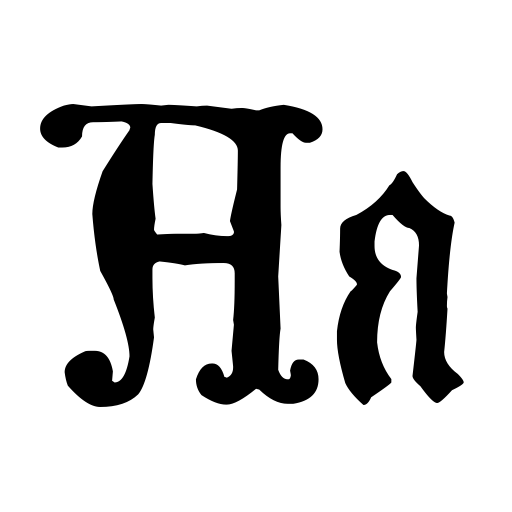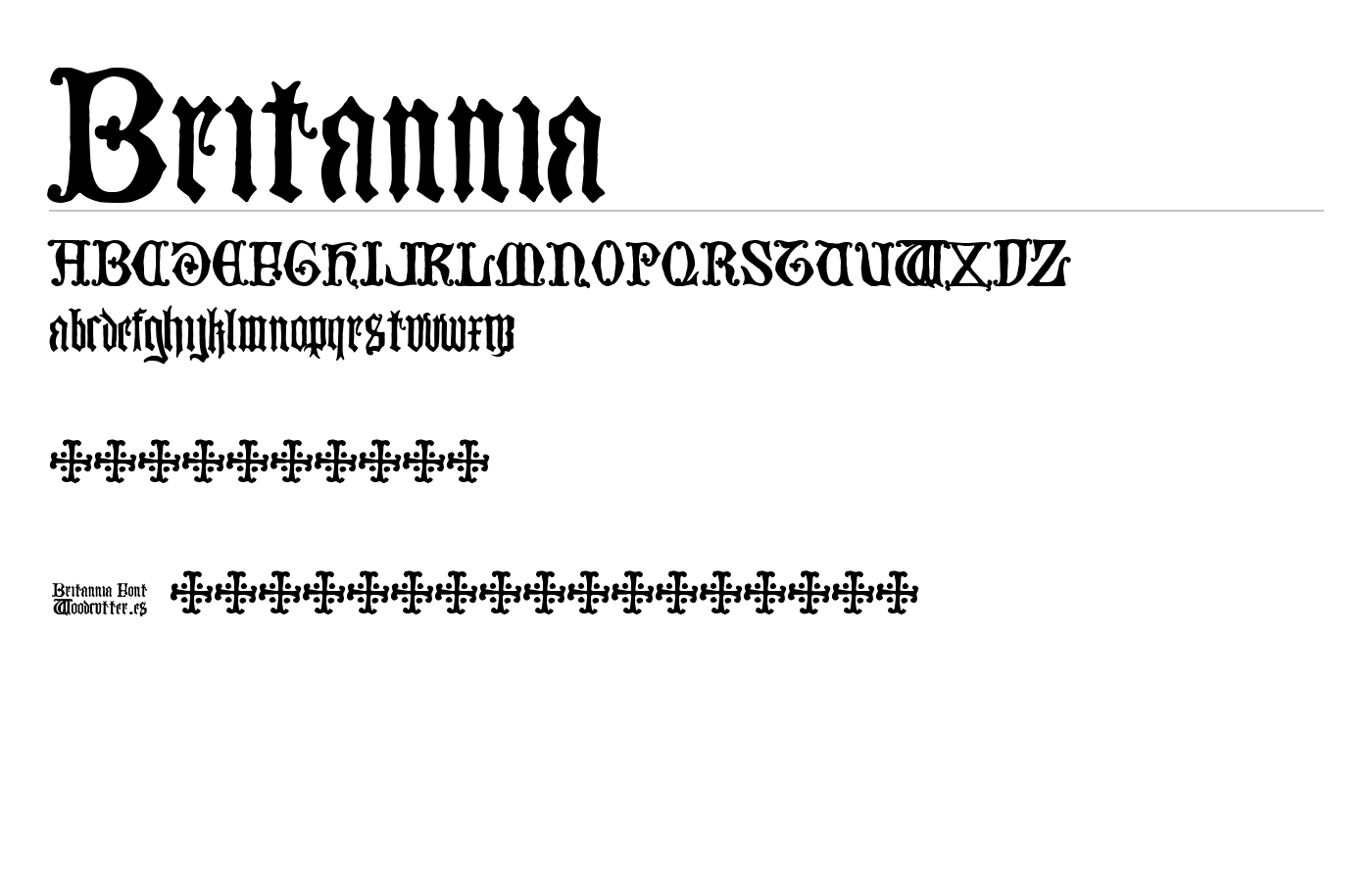
Britannia is a bold blackletter serif font with strong, sharp strokes and intricate, ornamental details that evoke a vintage, medieval feel. Its tall, narrow letterforms and high contrast between thick and thin lines give it a dramatic and formal appearance, ideal for historical or traditional branding, logos, and decorative headlines where a sense of heritage and old-world craftsmanship is desired.
Britannia Font
About Britannia Font